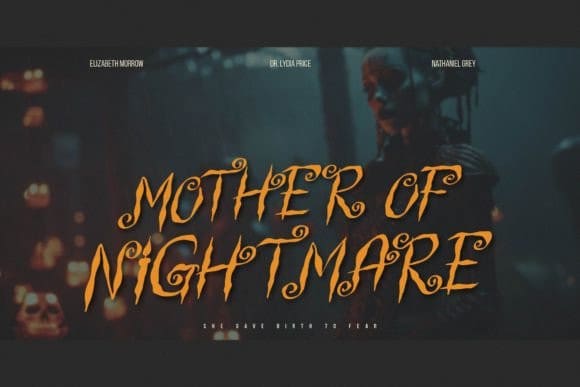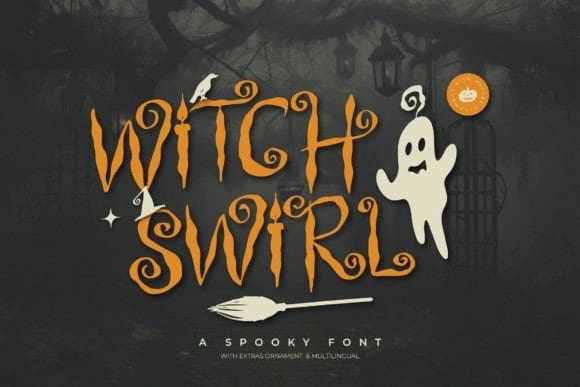
Witch Swirl Font
Witch Swirl Font is a fun, spooky font with cute, swirling letters. It’s perfect for adding a playful, eerie touch to your Halloween projects or any creative design that needs a dash of magic!